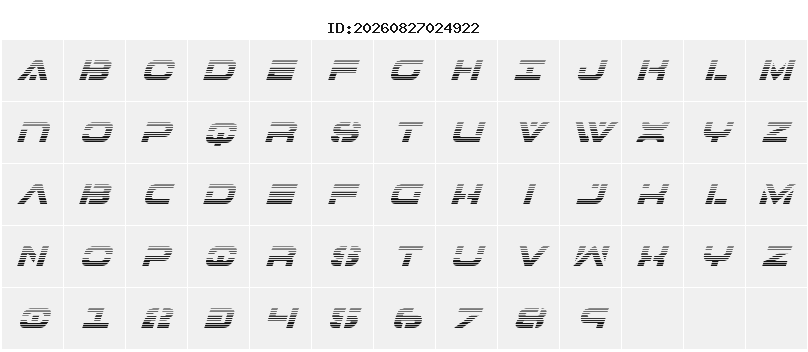
7th Service Gradient Italic.ttf is a modern, elegant sans-serif font designed for ultimate readability and visual harmony. Perfect for branding, headlines, web design, and print materials.